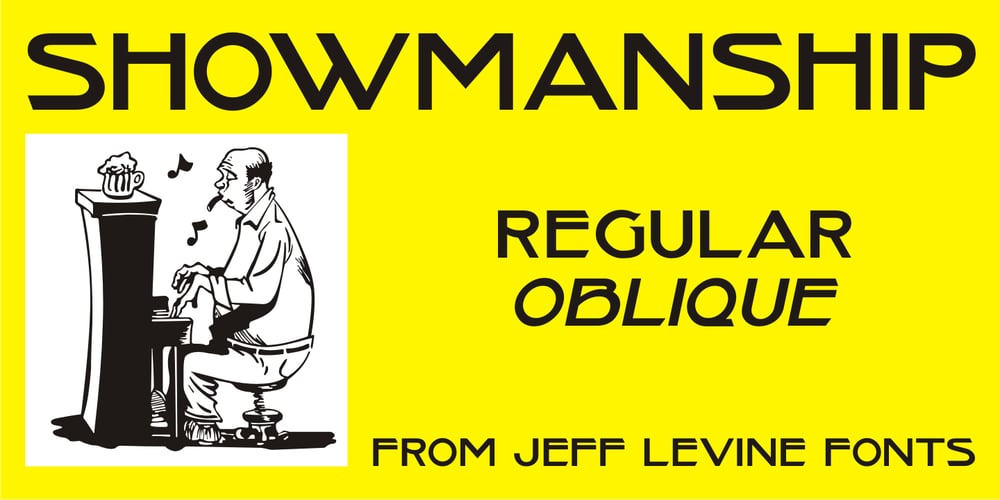
Showmanship JNL
Showmanship JNL font
Showmanship JNL Font Family was designed by Jeff Levine and published by Jeff Levine. Showmanship JNL contains 2 styles and family package options. Despite the racially demeaning 1906 sheet music for “The Ghost of the Banjo Coon”, the title’s lettering provided an interesting hand-lettered sans serif that has been re-drawn digitally as Showmanship JNL in both regular and oblique versions.